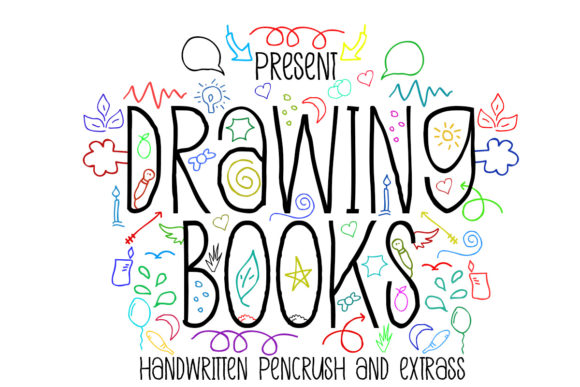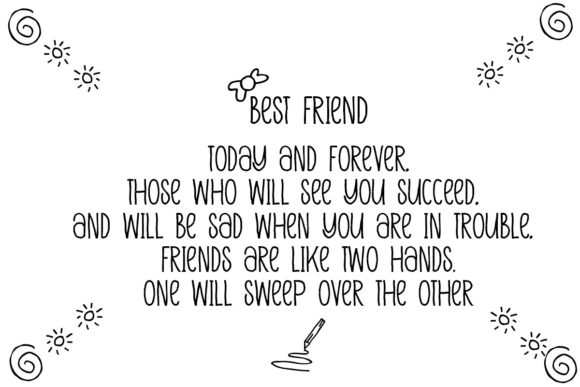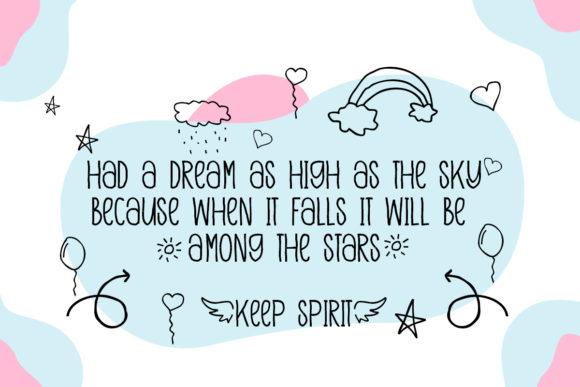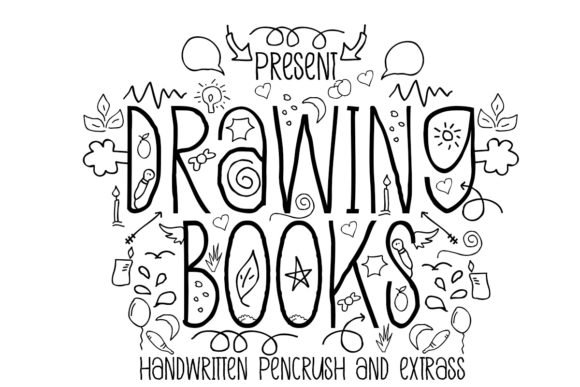
Introduction to Drawing Books Font
Drawing Books is a charming display font.
Fall in love with its authentic feel and use it to create gorgeous invitations, beautiful stationary art, eye-catching social media posts, and cute greeting cards .
Key Features of Drawing Books Font
Why Choose Drawing Books Font?